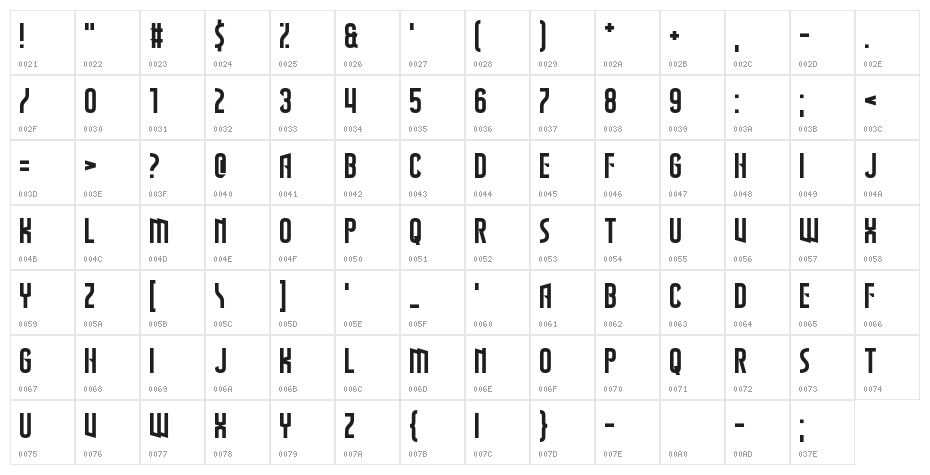
The Wastes of Space Font
The Wastes of Space Description
This font features a bold and angular design with a futuristic and geometric aesthetic. The characters are sharply defined with straight lines and pointed edges, creating a striking and modern appearance. The uppercase letters are particularly distinctive, with a unique cut-out style that adds to the font's dynamic look. The numbers and special characters maintain this angular theme, ensuring consistency across all glyphs. This font's bold presence makes it ideal for attention-grabbing designs.
| Proposed Projects | Ideal for sci-fi themed posters, video game titles, futuristic branding, and technology-related advertisements. |